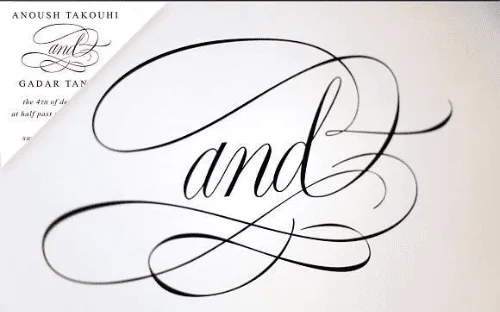
The Fifty AND for your weddings Font excels in celebratory design applications including milestone wedding invitations, anniversary celebration branding, golden jubilee logos, commemorative product packaging, special event business cards, celebration portfolios, anniversary greeting cards, milestone social media graphics, golden wedding signage, and commemorative marketing materials. Its celebratory script style makes it perfect for projects requiring milestone elegance that communicates achievement and establishes commemorative brand positioning with audiences seeking golden anniversary experiences and jubilee sophistication.
What makes the Fifty AND for your weddings Font truly exciting is its exceptional ability to capture the golden splendor and milestone significance of fifty-year celebrations through triumphantly crafted letterforms. The font features flowing, jubilee-inspired strokes with golden flourishes and commemorative proportions that create a distinctly celebratory appearance. Each character displays masterful attention to milestone detail with golden curves, anniversary connections, and celebratory spacing that give text a precious, hand-lettered quality. The font's golden character and jubilee rhythm create an atmosphere of achievement while maintaining elegant sophistication and commemorative authenticity.
The Fifty AND for your weddings Font family typically includes regular weight with extensive character coverage, featuring uppercase and lowercase letters, numerals, punctuation marks, and international characters. The typeface often incorporates stylistic alternates, contextual ligatures, and golden swashes that enhance its signature celebration. These additional elements provide designers with creative flexibility to customize text appearance and achieve more natural-looking commemorative handwriting that reflects the font's milestone and jubilee character.
This commemorative signature font distinguishes itself through its remarkable balance of celebration and timeless elegance. Unlike ordinary fonts that lack milestone significance, Fifty AND for your weddings Font embraces the power of golden anniversary design to honor achievements and create meaningful connections with audiences. The font's jubilee character makes it essential for anniversary planners, milestone celebration brands, and commemorative projects where honoring fifty years of love and creating golden memories is fundamental to success in celebration markets.